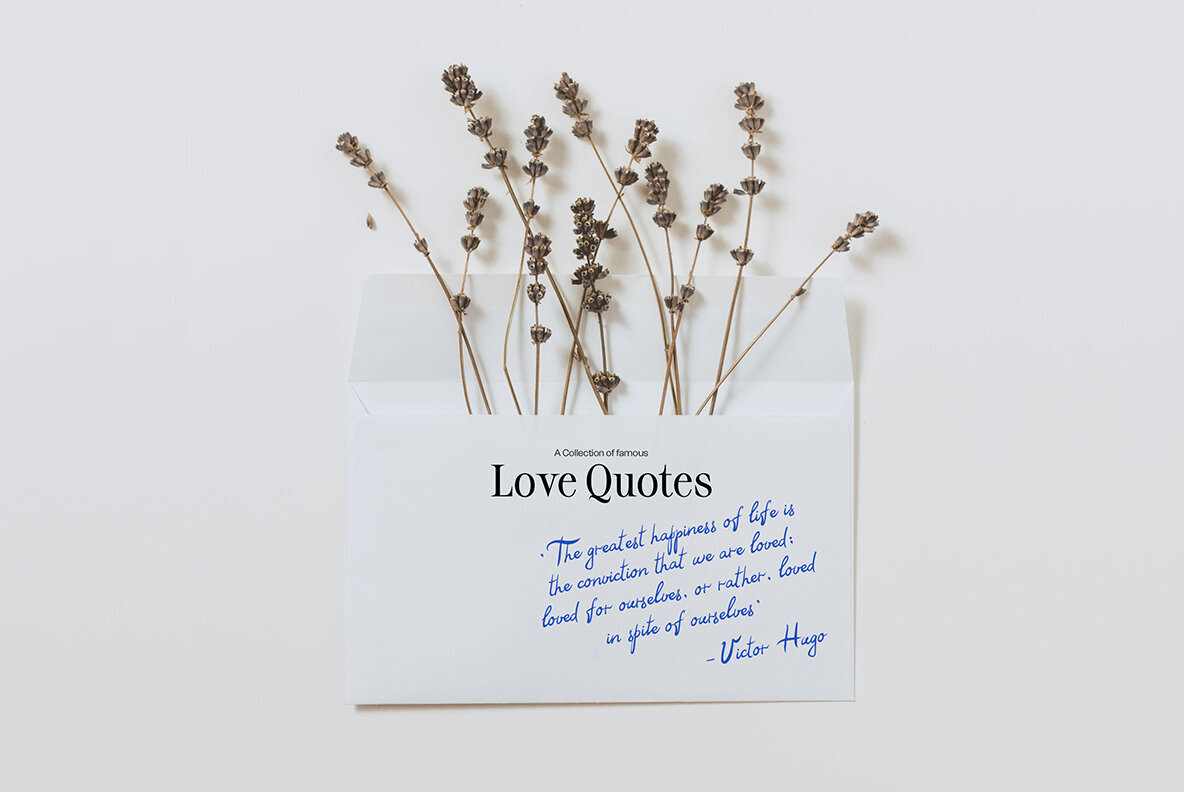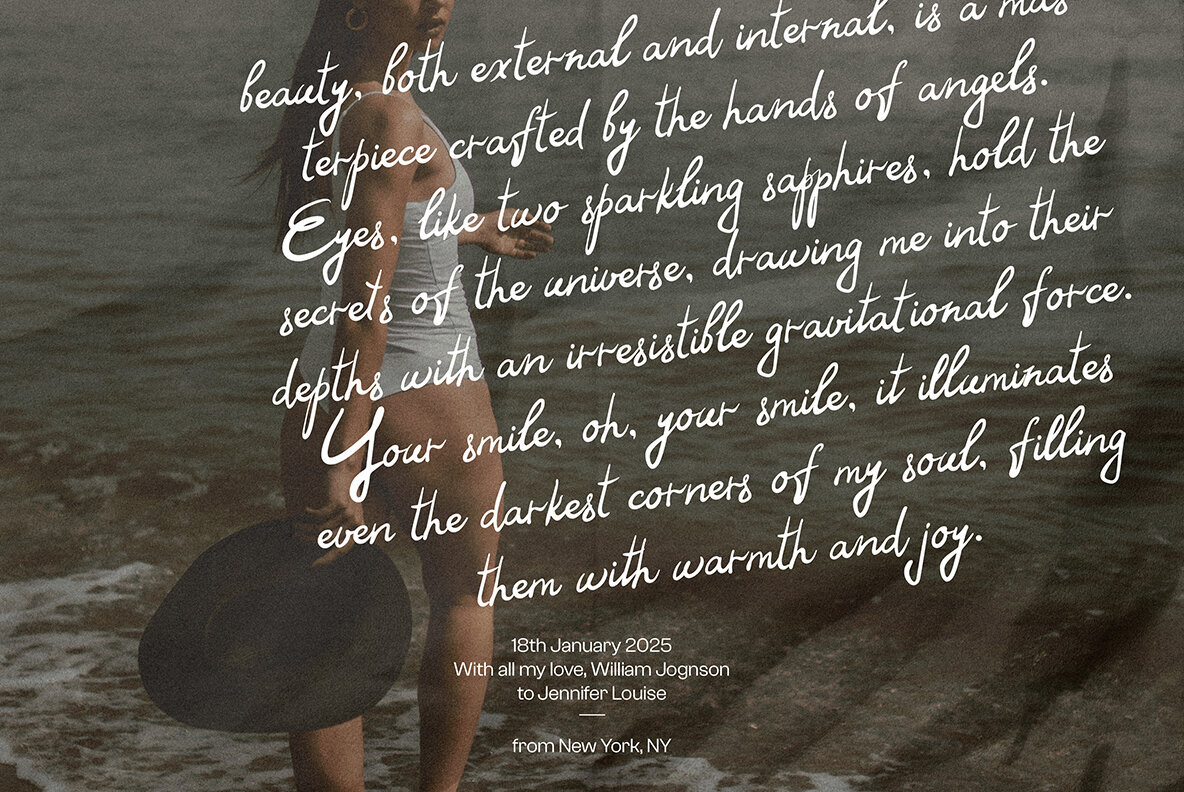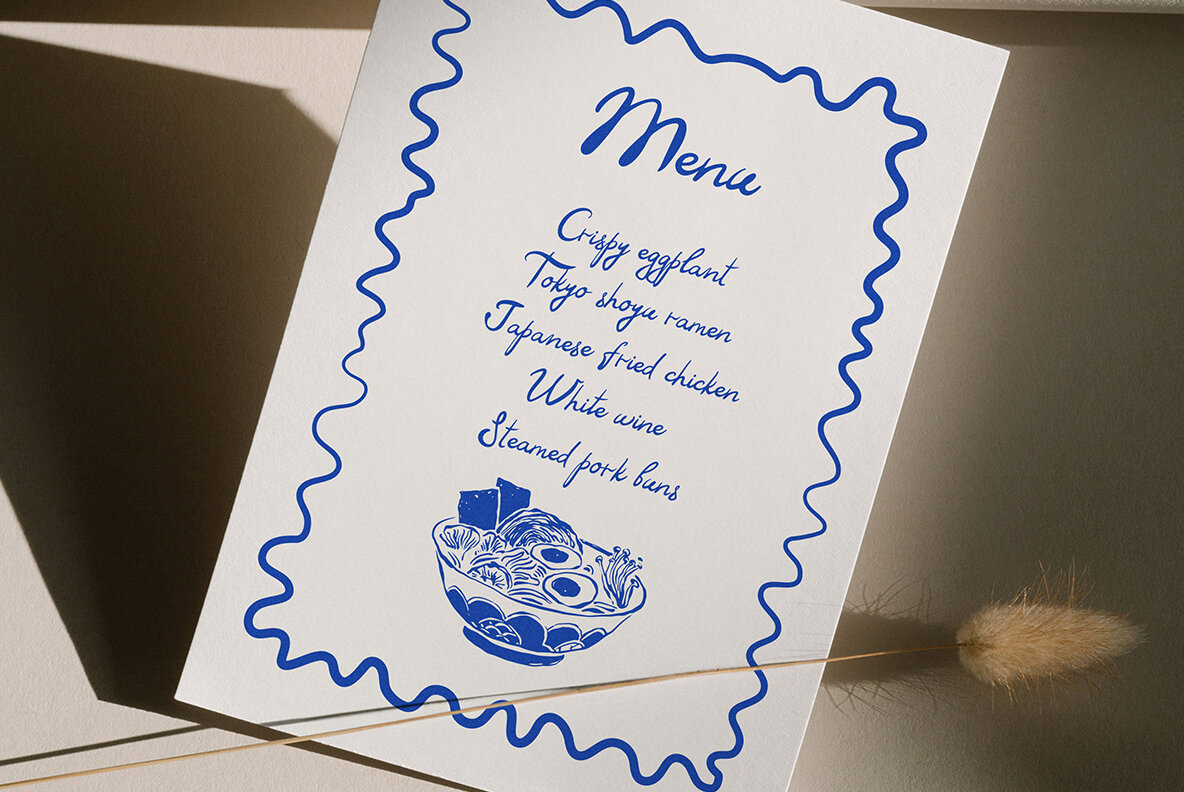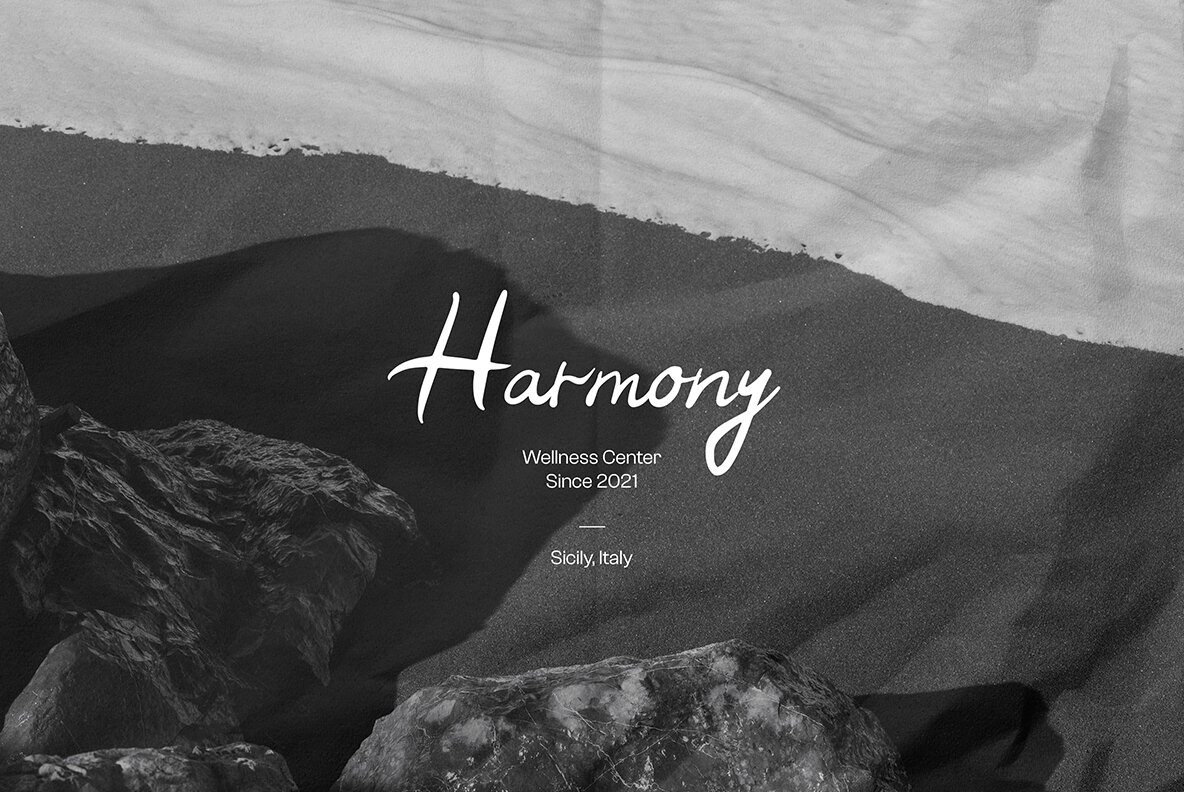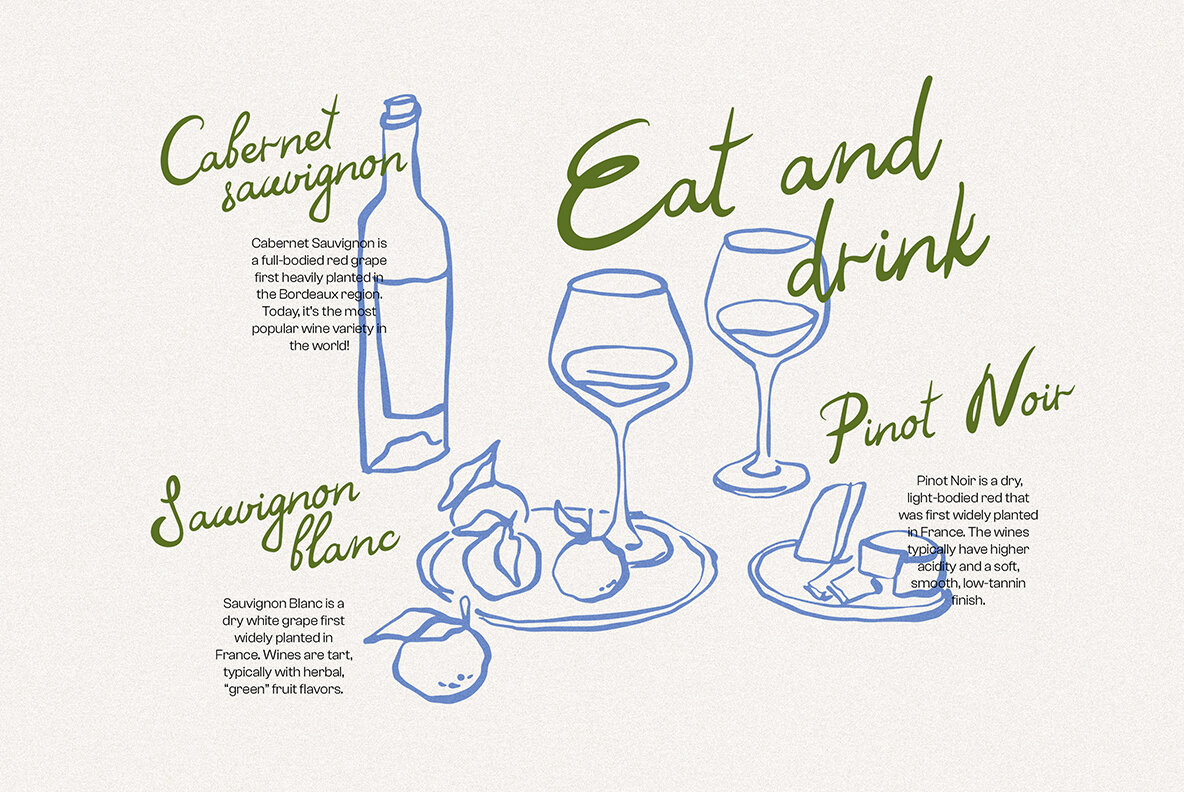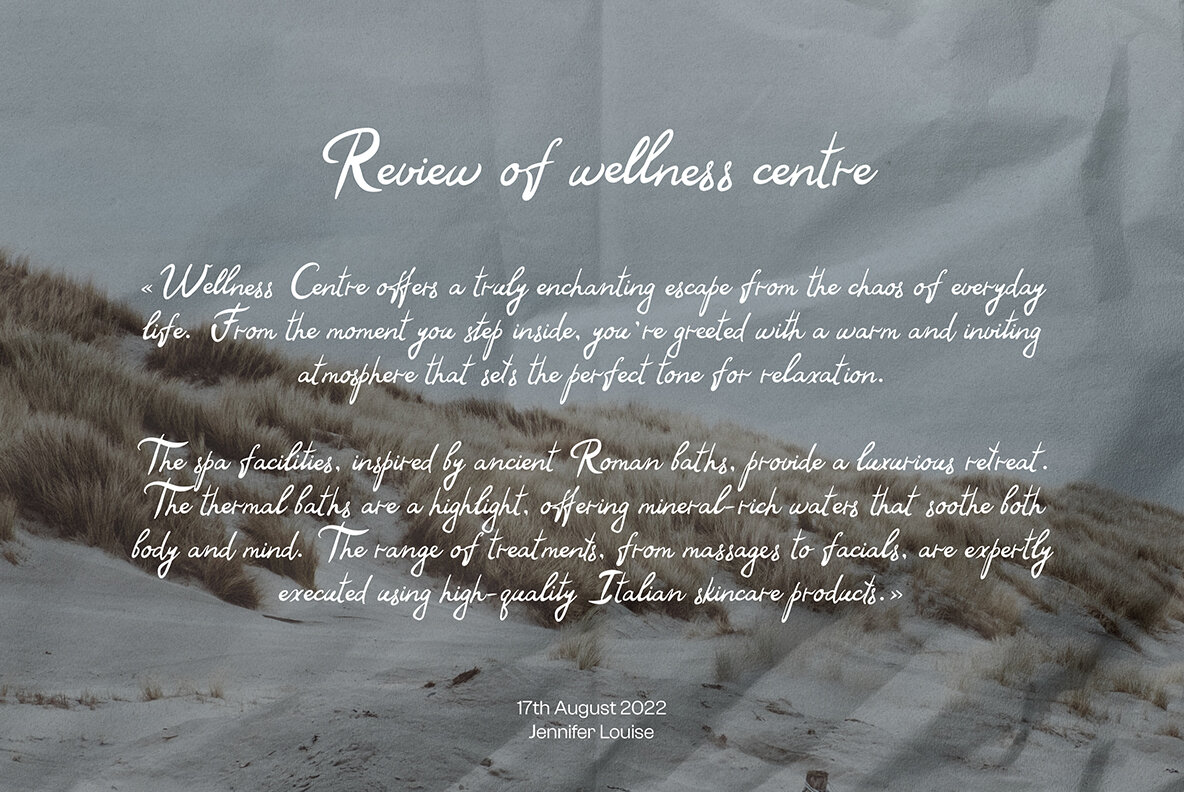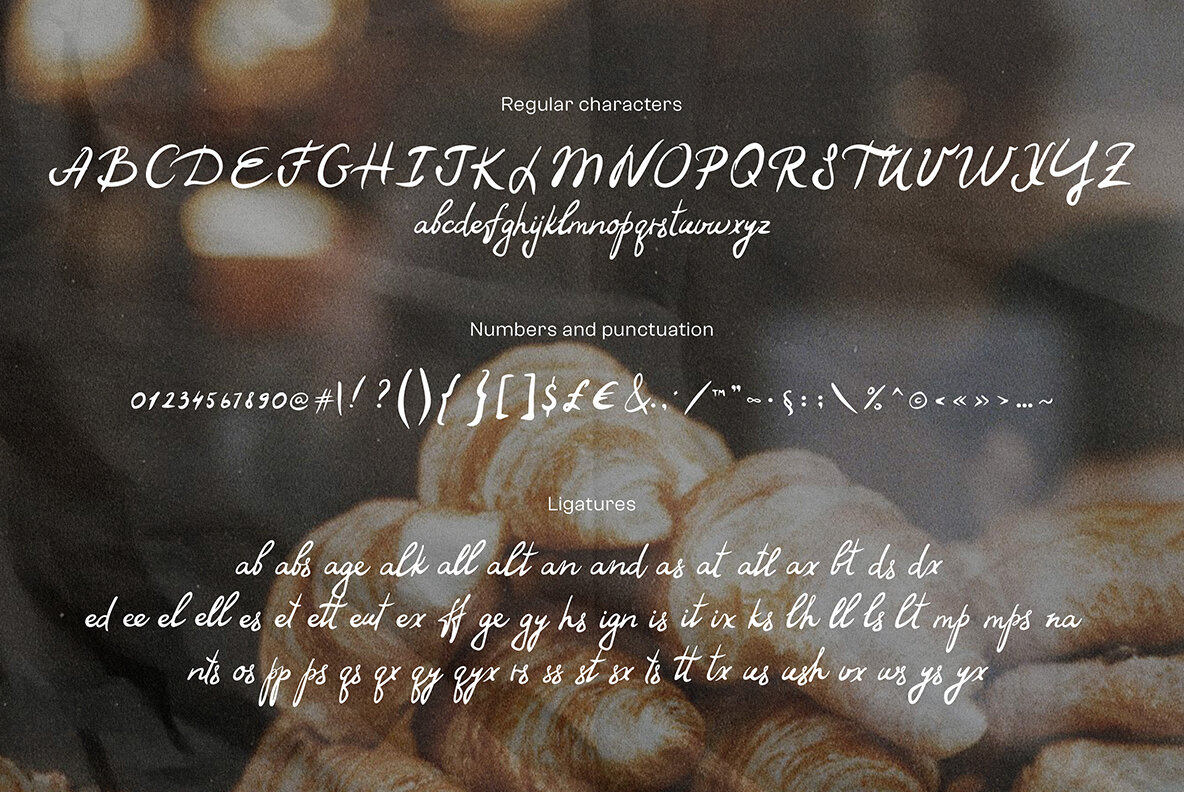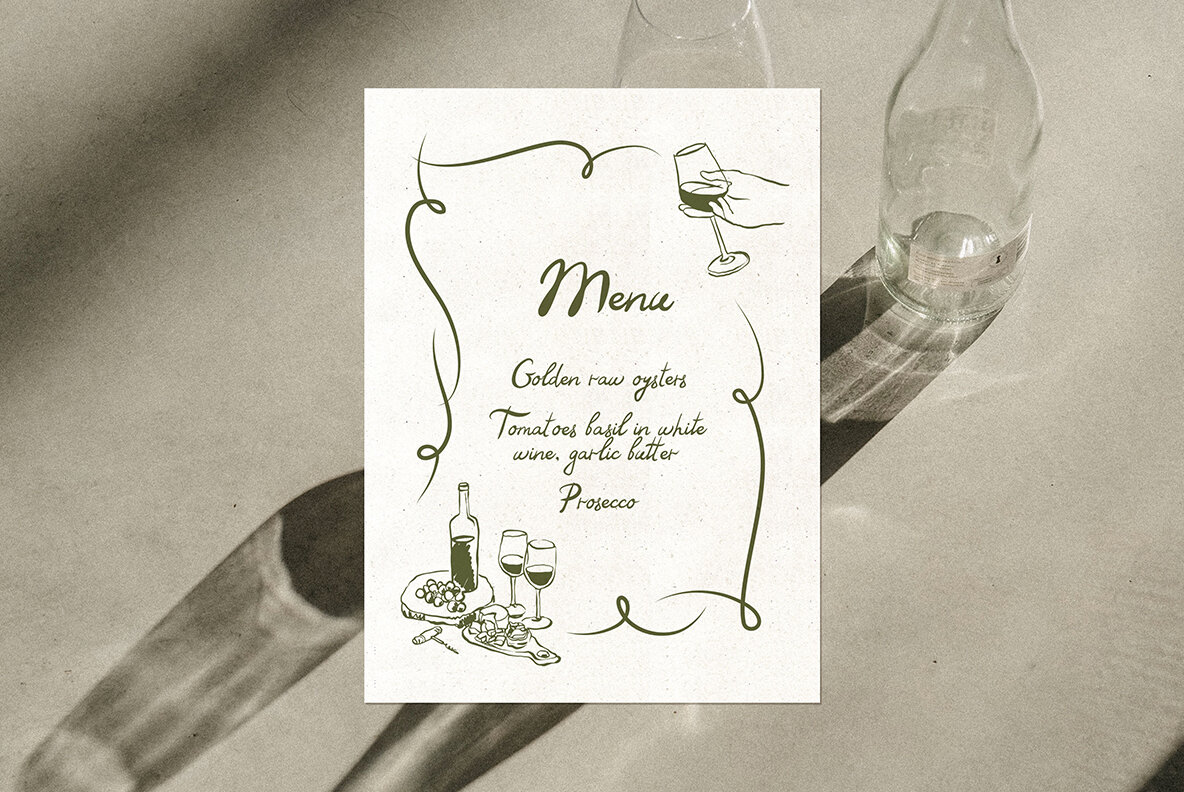
Gourmet Script 1
Welcome natural looking handwritten Gourmet script with opentype ligatures for your next design project. Perfect for business and personal purposes. Create packaging design, brand identity, art posters, invitations, restaurant menu and more.